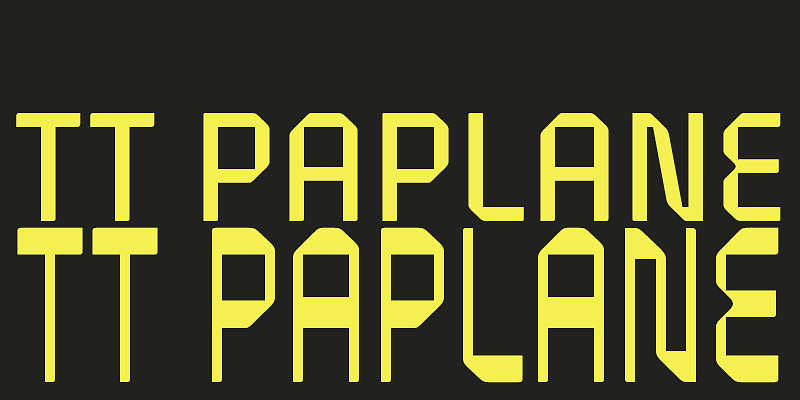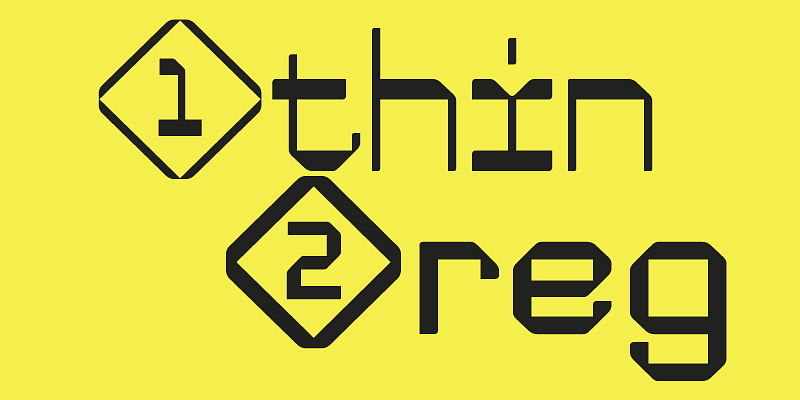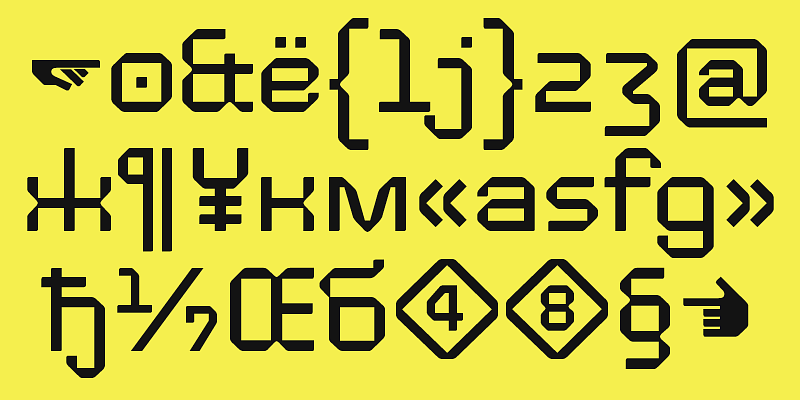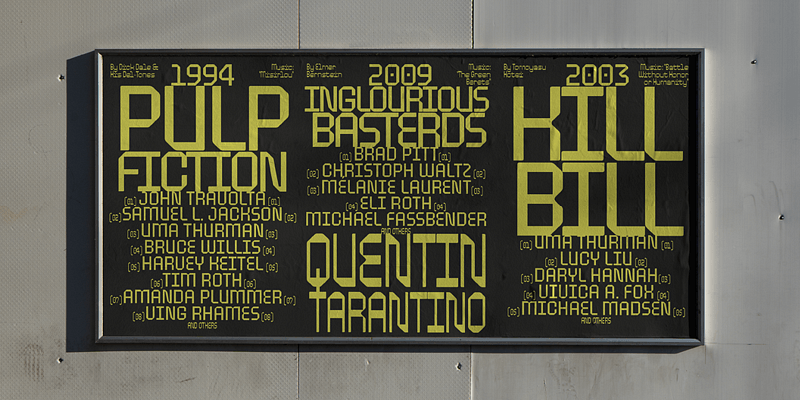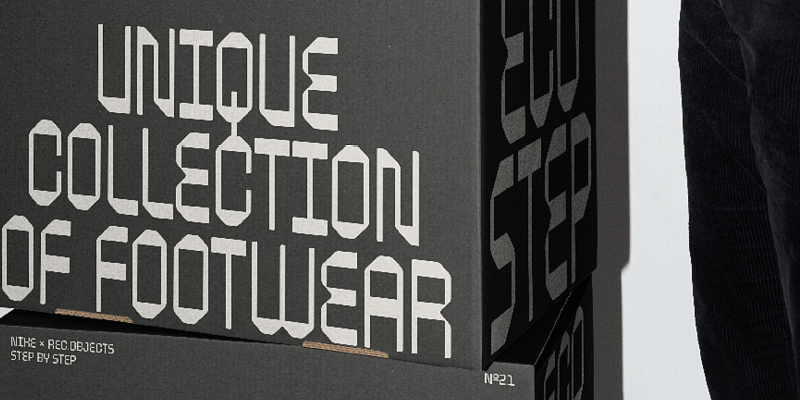
TT Paplane is a squared-looking display sans serif. Its name, Paplane, comes from the phrase “paper plane.” This embodies the core idea of our font: the logic of letters is built in a way that makes them look like they are folded from a paper strip. This sans serif stands out for its squared forms, 45-degree cuts, flowing outer contours, and asymmetrical smoothing of stroke ends. A playful feel of the font is achieved by varying proportions of lowercase and uppercase characters.